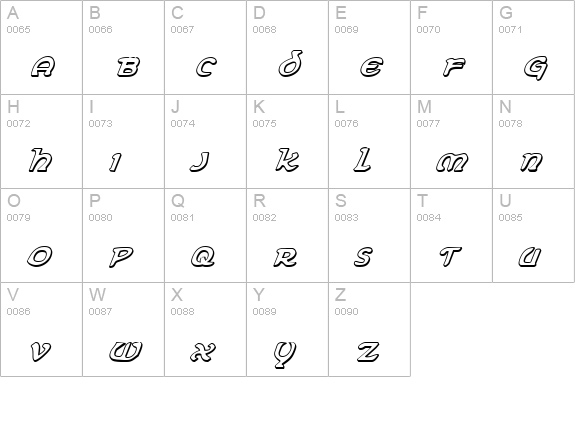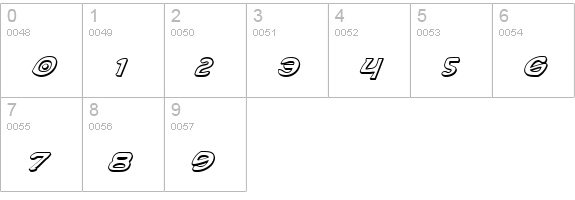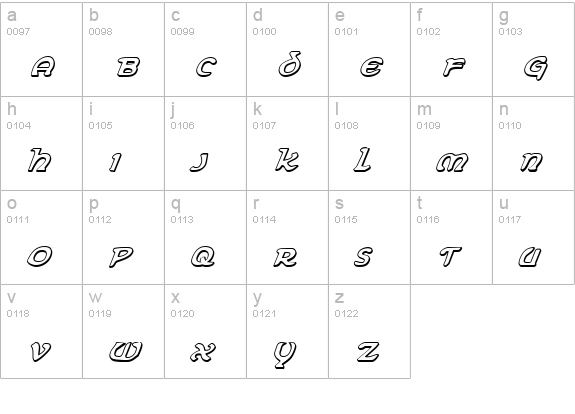
Erin Go Bragh 3D Italic is a distinctive, italic variant in the Erin typeface family \xE2\x80\x94 well suited to design and typography projects.
Erin Go Bragh 3D Italic font is a visually striking typeface that brings a unique 3D effect to your designs. Its italic style adds a touch of elegance and sophistication, making it perfect for projects that require a modern and dynamic look. The intricate details of this font make it stand out, capturing the attention of viewers and adding a sense of depth to your text. And the best part? Erin Go Bragh 3D Italic font is completely free to download at FontsMarket.com! Whether you're working on a personal project or a professional design, this font is a versatile addition to your creative toolkit. With its sleek and contemporary design, Erin Go Bragh 3D Italic font is sure to elevate your typography game and make your projects shine. Download it today and take your designs to the next level!